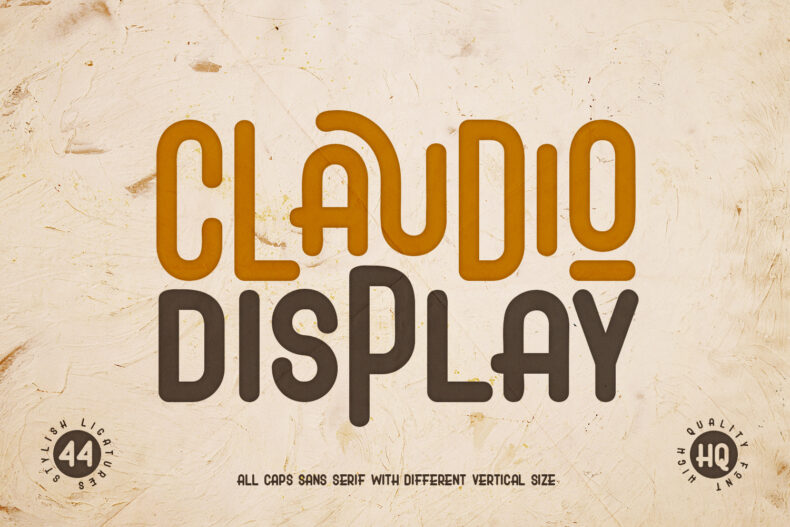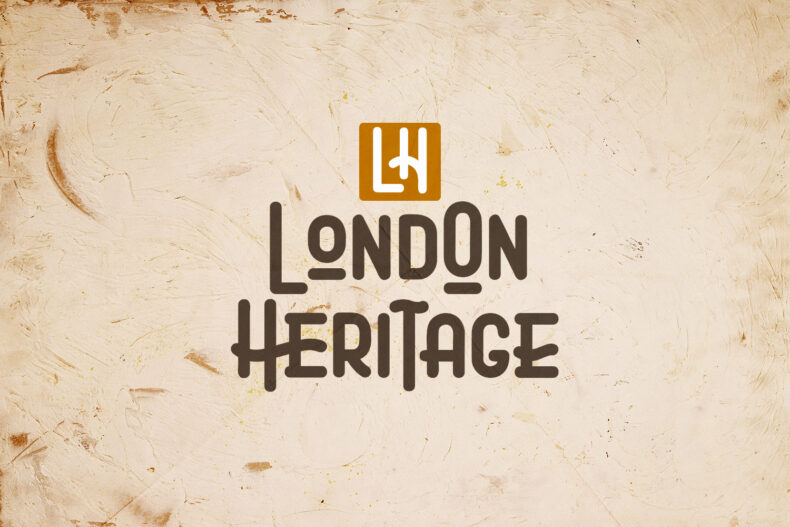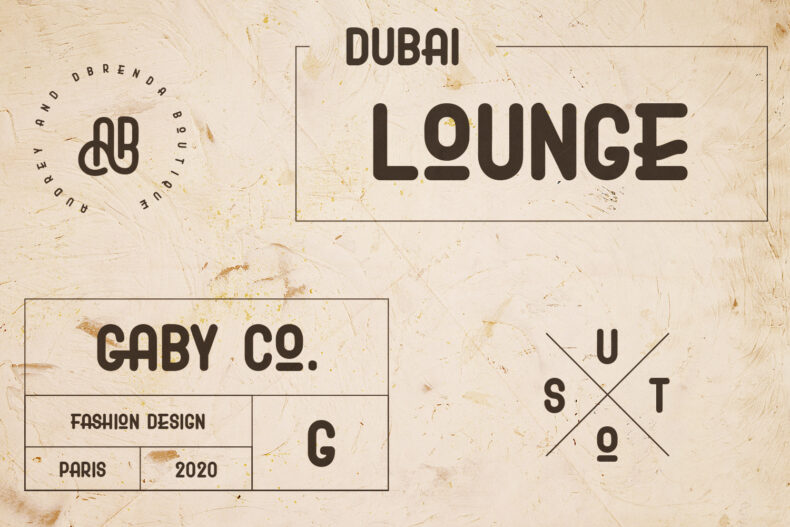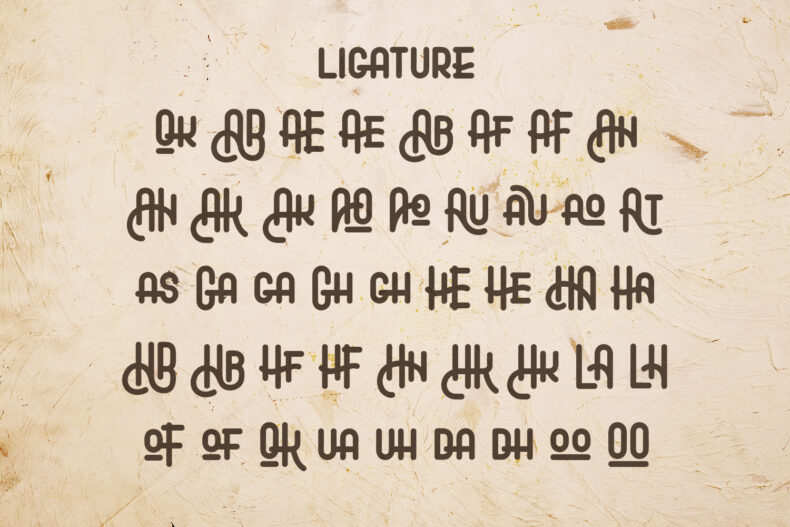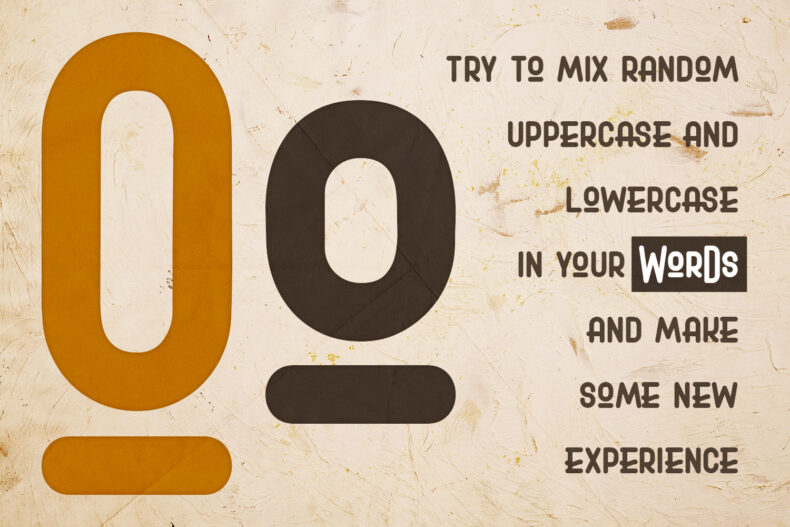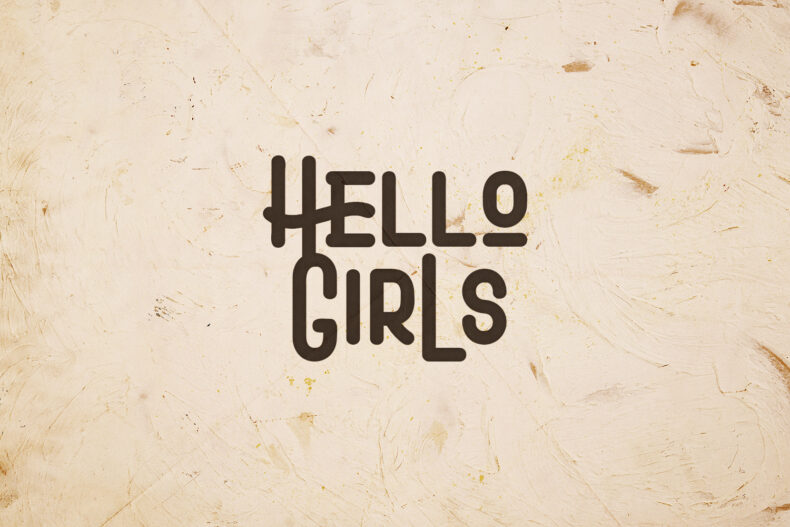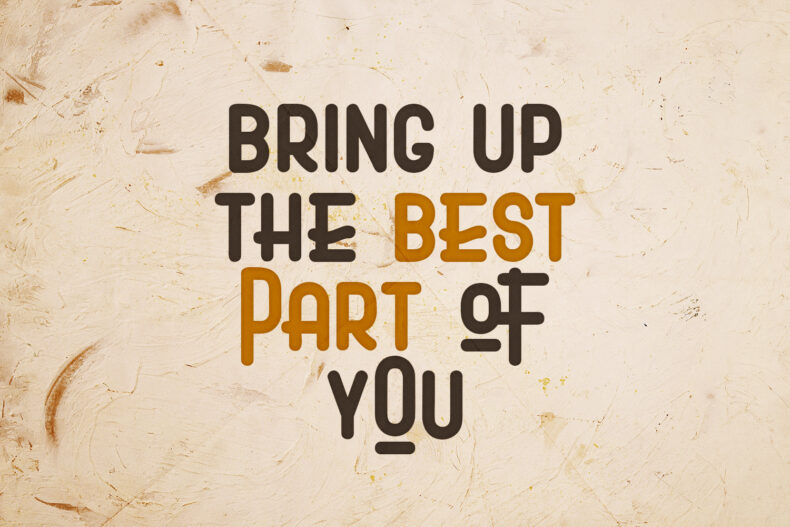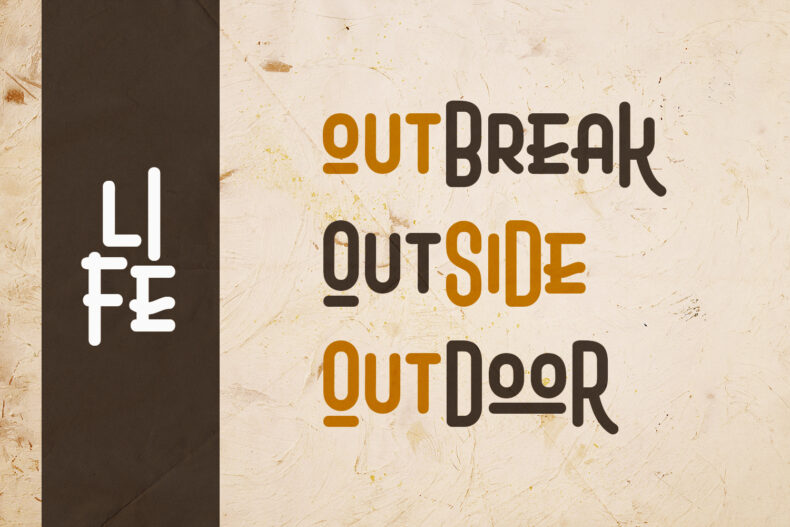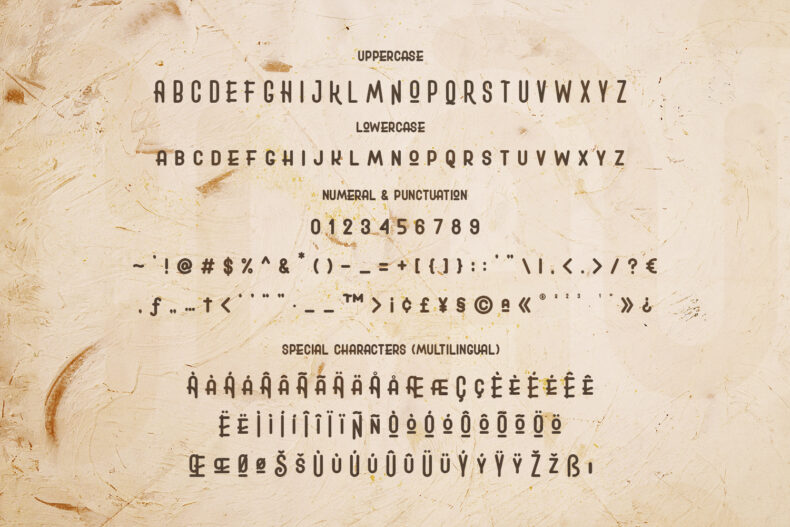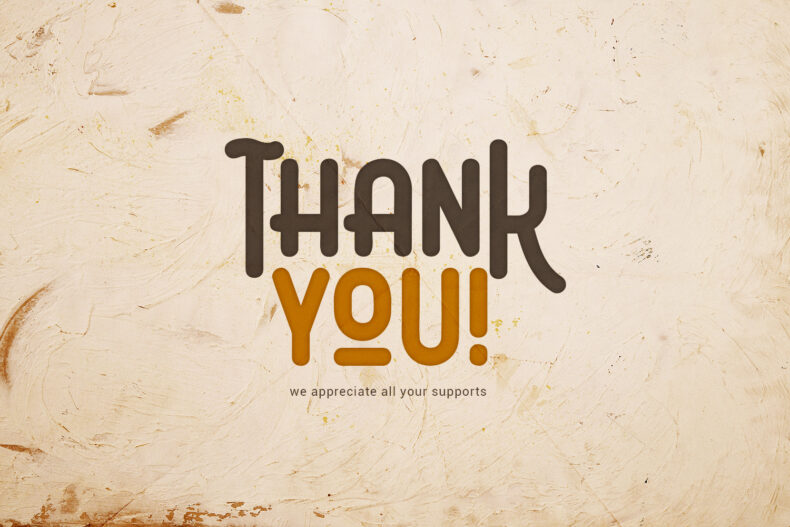
Claudio, Display Font
Smooth but crazy wilder, say hello to Claudio! The coolest display font with more than 40 stylish ligatures. As an all caps sans serif, Claudio has different vertical size between uppercase and lowercase. You can mix them to create something wild and eye- catching typography on your work.
Claudio is flexible font that can be used for classic retro or vintage project and also great for another modern projects with fresh and colorful design. It’s give you all control to use Claudio in any style you need.